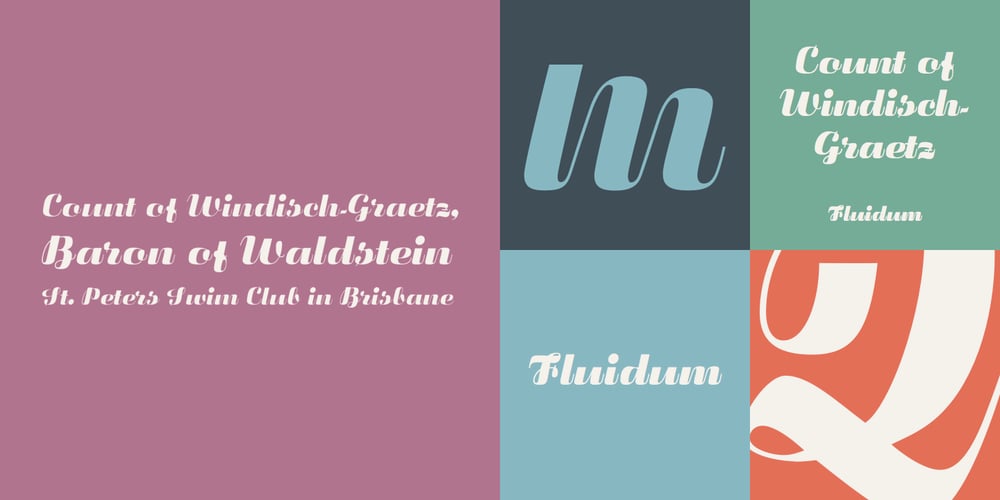
Fluidum Font Family was designed by Alessandro Butti and published by Monotype. Fluidum contains 1 styles and family package options. Aldo Novarese designed the Fluidum typeface in 1951. As its name implies, the design is very fluid. This high contrast script face curls and twists across the line. It is sort of a cross between Giambattista Bodoni’s cursive letters, and Aldo Novarese’s later, heavier designs, like Microgramma, Eurostile, and Sprint. Fludium should be set in very large pint sizes. It is perfect for invitations, greeting cards, and fine logos.